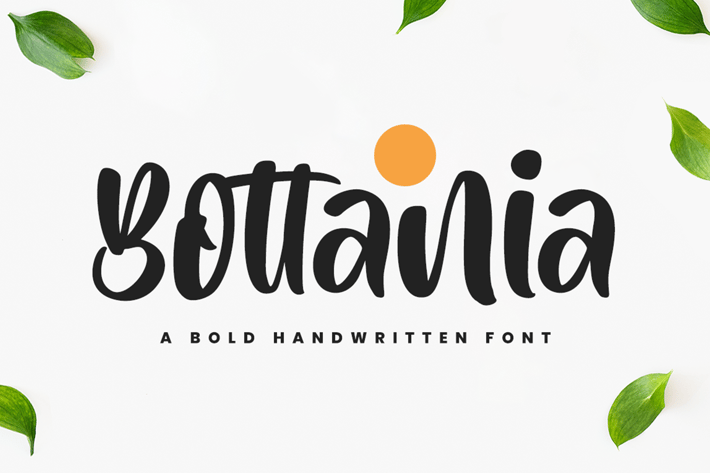
Bottania - Bold Font
Bottania is an elegant and bold script font. Fall in love with its incredibly versatile style and use it to create gorgeous wedding invitations, beautiful stationary art, eye-catching social media posts, and much more!